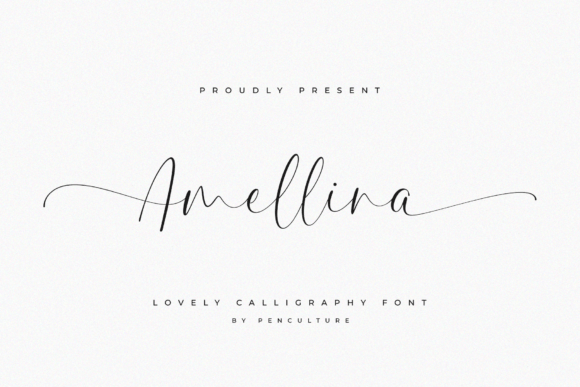
Introducing Amellina Font, the epitome of elegance and charm in the world of script fonts. Crafted with utmost care and attention to detail by the talented creators at Pen Culture, this font is designed to captivate and inspire.
Amellina Font is more than just a typographic masterpiece; it is a work of art that brings your words to life. With its exquisite beginning and ending swashes, every letter dances effortlessly across the page, creating a mesmerizing visual experience.
Imagine the possibilities with Amellina Font. Let your creativity soar as you adorn your invitations with its graceful strokes, add a touch of sophistication to your social media posts, or create stunning greeting cards that leave a lasting impression. This font is your gateway to a world of endless possibilities.
But Amellina Font is not just aesthetically pleasing; it is also incredibly versatile. Its versatility shines through in its ability to adapt to various projects and styles. Whether you're designing a magazine layout, watermarks for your photography, or any other creative endeavor, Amellina Font will effortlessly elevate your work to new heights.
With its seamless integration into your design process, Amellina Font becomes your trusted companion, empowering you to express your unique voice and leave a lasting impact on your audience.
But don't just take our word for it. Immerse yourself in the enchanting world of Amellina Font and witness its magic firsthand. Feel the rush of excitement as you see your words transformed into a visual masterpiece that demands attention.
Experience the power of Amellina Font and redefine the way you communicate through design. Your journey towards captivating visuals starts here.